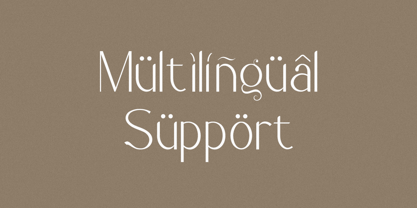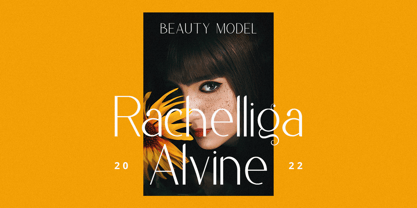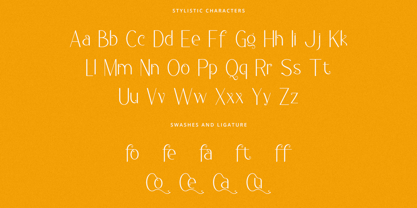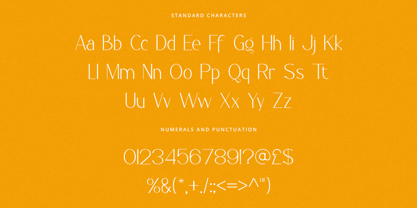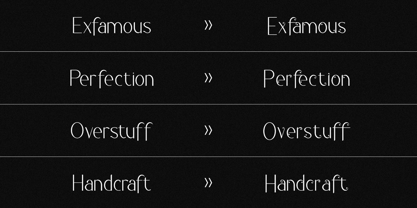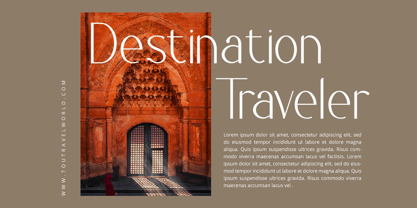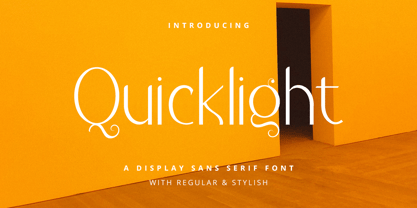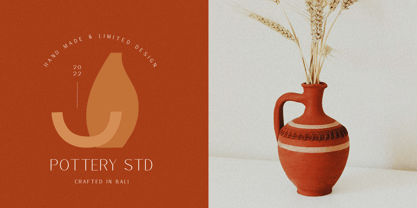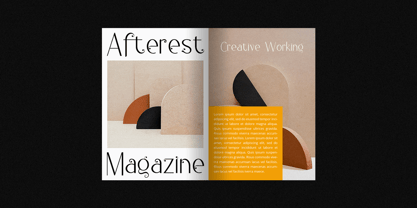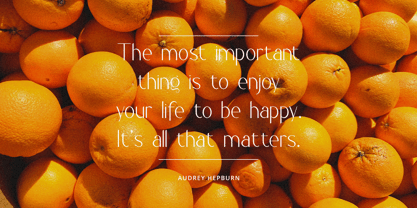
Quicklight
by Rockboys Studio
The Quicklight Font Family was designed by Hayinah and published by Rockboys Studio. Quicklight contains 1 styles.
Quicklight is a stylish and clean sans serif font. It has an elegant and modern look that can be used for logos, branding, invitations, stationery, wedding designs, social media posts, and much more!
Designers: Hayinah Hayinah
Publisher: Rockboys Studio
Foundry: Rockboys Studio
Design Owner: Rockboys Studio